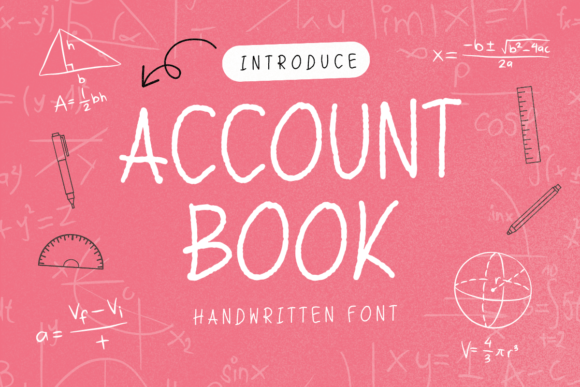
Introducing Account Book Font: The Cute Handwritten Font for Creative Designs
Are you a designer, crafter, or teacher looking for a font that can add a touch of charm and personality to your work? Look no further than Account Book Font, a simple yet adorable handwritten font that’s perfect for a variety of creative projects. In this article, we’ll explore the features and benefits of Account Book Font, and show you how it can be used to create stunning designs that capture the attention of your audience.
What is Account Book Font?
Account Book Font is a cute handwritten font that’s designed to be versatile and easy to use. Its simple and charming lettering style makes it perfect for a wide range of applications, from crafts for kids and teachers to greeting cards and other creative projects. Whether you’re looking to add a personal touch to your designs or create a cohesive brand identity, Account Book Font is an excellent choice.
Key Features of Account Book Font
- Simple and Cute: Account Book Font features a simple and adorable lettering style that’s sure to capture the attention of your audience.
- Versatile: This font can be used in a variety of applications, from crafts and greeting cards to posters and other creative projects.
- Easy to Use: Account Book Font is designed to be easy to read and use, making it perfect for designers and crafters of all skill levels.
- Charming: The font’s charming lettering style adds a touch of personality to your designs, making them stand out from the crowd.
How to Use Account Book Font
Account Book Font can be used in a variety of creative projects, including:
- Crafts for Kids: Use Account Book Font to create fun and engaging crafts for kids, such as coloring pages, activity sheets, and more.
- Teacher Resources: Teachers can use Account Book Font to create educational resources, such as worksheets, posters, and presentations.
- Greeting Cards: Add a personal touch to your greeting cards with Account Book Font, perfect for special occasions like birthdays, holidays, and more.
- Design Projects: Use Account Book Font as a centerpiece for your design projects, such as brochures, flyers, and posters.
Tips for Using Account Book Font
Here are some tips for getting the most out of Account Book Font:
- Experiment with Colors: Try pairing Account Book Font with different colors and textures to add depth and interest to your designs.
- Mix and Match: Combine Account Book Font with other fonts and design elements to create a unique and eye-catching design.
- Keep it Simple: Don’t be afraid to keep your design simple and clean, allowing Account Book Font to take center stage.
Account Book Font is a versatile and charming handwritten font that’s perfect for designers, crafters, and teachers looking to add a touch of personality to their work. With its simple and cute lettering style, Account Book Font can be used in a variety of creative projects, from crafts and greeting cards to design projects and more. By following the tips outlined in this article, you can get the most out of Account Book Font and create stunning designs that capture the attention of your audience.